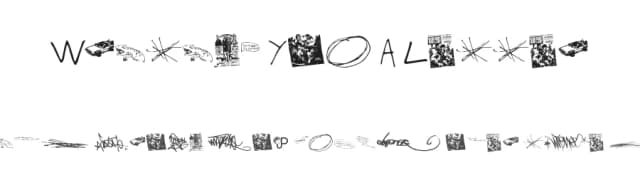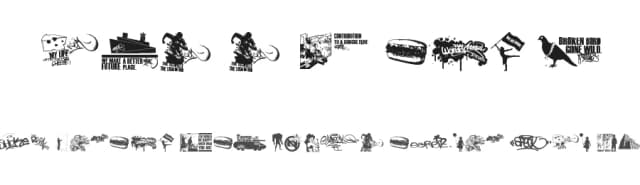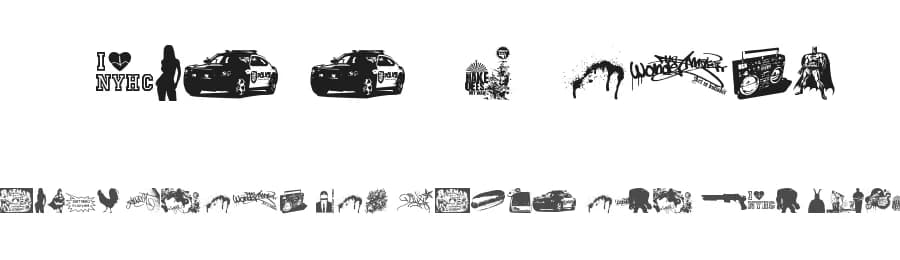
About This Is My Town! Font
This is my town... This is your town! 41 street logos ready to be used!
This Is My Town! Font is a versatile dingbats font that works for both headings and body text. Pair it with a contrasting sans-serif or serif font to add visual interest and a clear distinction between titles and body copy.